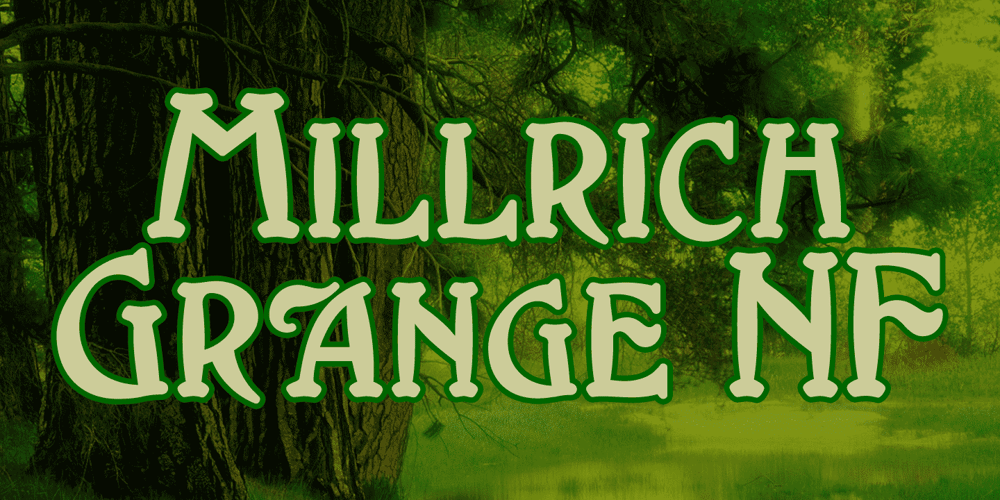
Millrich Grange NF Font Family was designed by Nick Curtis and published by Nick’s Fonts. Millrich Grange NF contains 1 styles and family package options. Here’s a refined version of Grange, released by Edinburgh’s Miller & Richards foundry just around the turn of the twentieth century. A bit quirky with a lot of warmth. Both flavors of this font feature the 1252 Latin, 1250 Central European, 1254 Turkish and 1257 Baltic character sets.